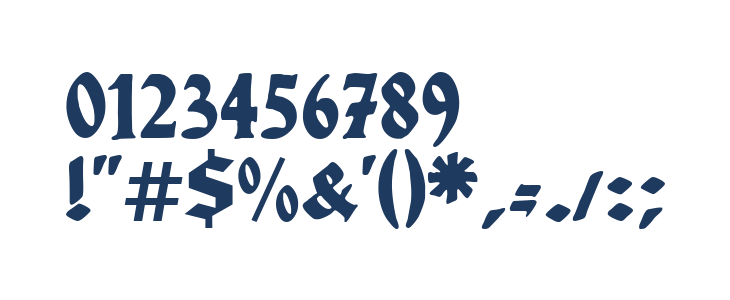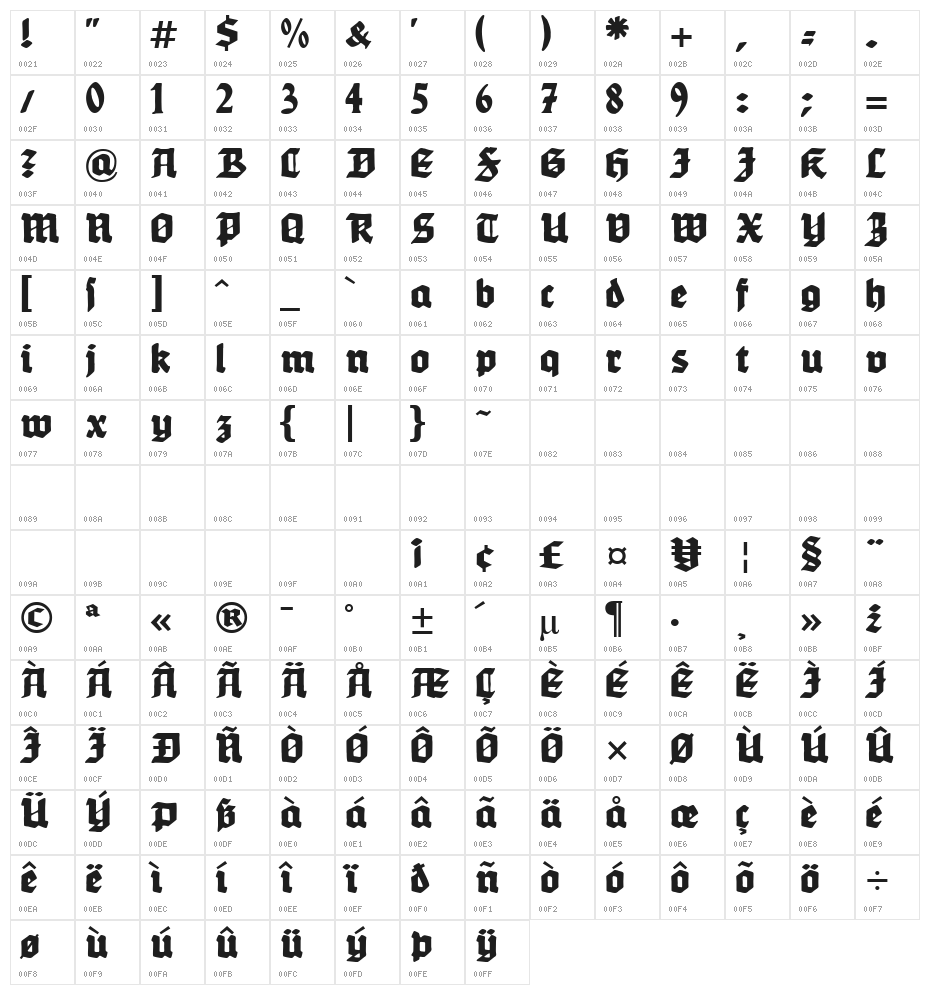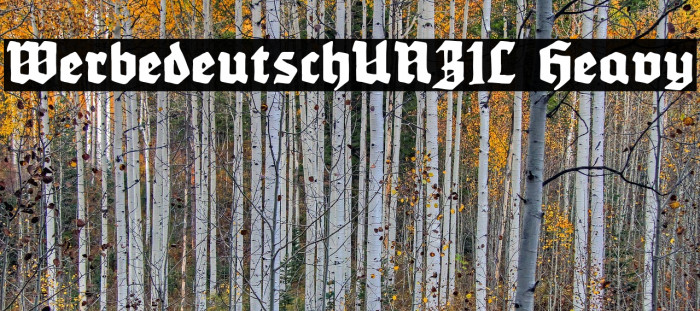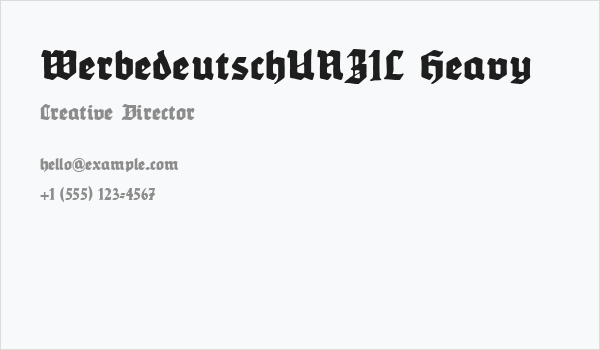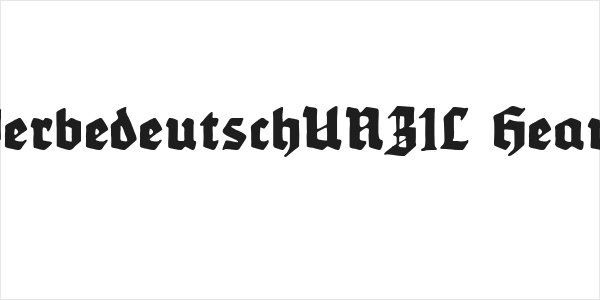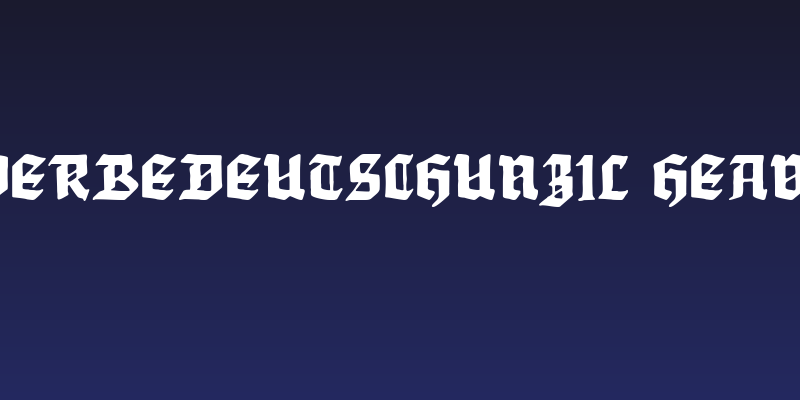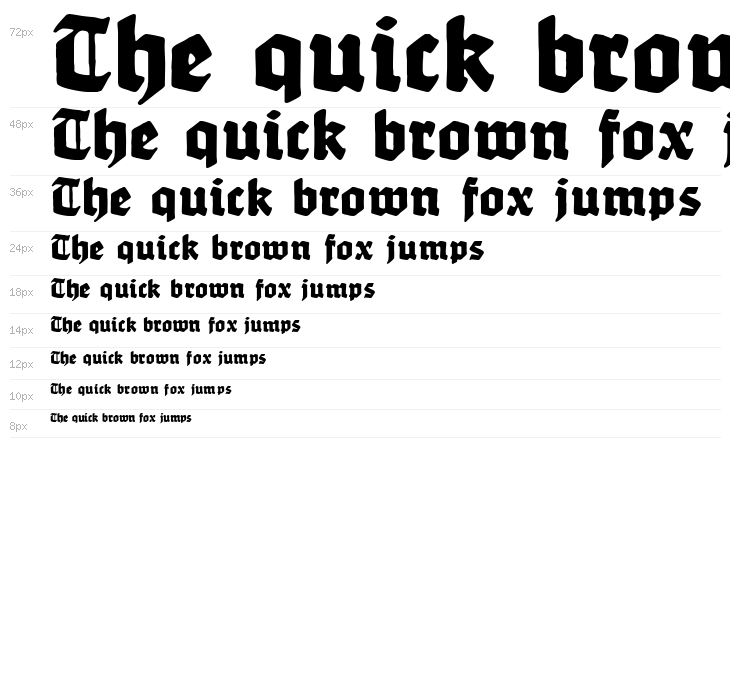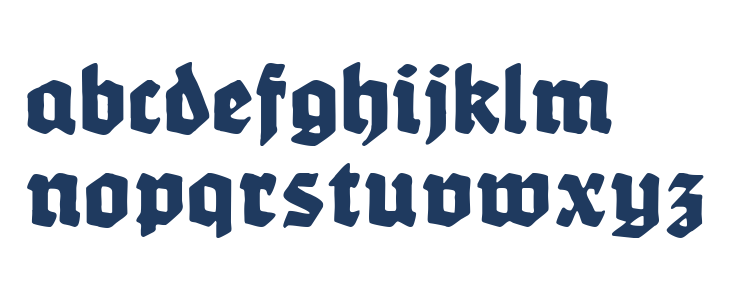
WerbedeutschUNZ1L Heavy Font
WerbedeutschUNZ1L Heavy Description
This font exhibits a bold, blackletter style with strong, angular strokes and a distinct medieval aesthetic. The uppercase letters are characterized by sharp edges and pointed serifs, while the lowercase letters maintain a consistent style with slightly more rounded forms. The numbers and special characters follow the same bold and intricate design, making them stand out with a dramatic flair. The overall appearance is reminiscent of traditional Gothic script, often associated with historical or formal contexts. This font's heavy weight and striking presence make it suitable for impactful designs.
| Use Case | Headlines, Logos, Decorative elements |
| Proposed Projects | Ideal for historical themed projects, book covers, posters, or branding that requires a dramatic and traditional touch. |